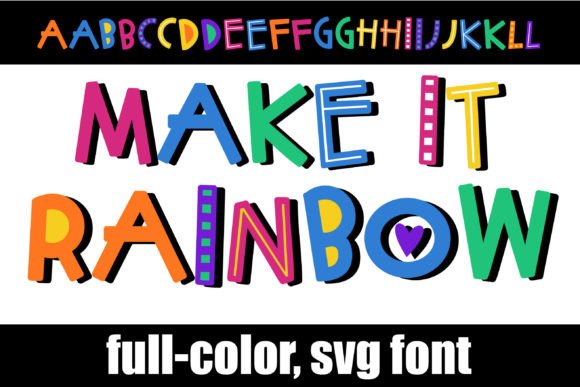
Welcome to the enchanting realm of Make It Rainbow, a color font that captivates with its vibrant and playful spirit. Immerse yourself in a world where letters dance in a kaleidoscope of colors, adding a touch of magic to your creative projects. With Make It Rainbow, the ordinary becomes extraordinary, transforming words into works of art.
Unleash your imagination and let your creativity soar as you explore the endless possibilities of Make It Rainbow. This font is the perfect companion for those seeking to add a pop of fun and personality to their designs. Its bold and bright colors are guaranteed to make a statement, leaving a lasting impression on your audience.
Whether you're designing invitations, greeting cards, social media posts, or website graphics, Make It Rainbow is the ultimate choice for adding a touch of whimsy and wonder. Its playful nature makes it ideal for projects aimed at children, bringing a smile to their faces and capturing their attention.
With Make It Rainbow, you'll discover a limitless palette of colors that blend seamlessly together, creating a visually stunning effect. Its unique and eye-catching design is sure to grab attention, making your projects stand out from the crowd.
But Make It Rainbow is more than just a pretty face. It's also incredibly versatile, lending itself to a wide range of design styles and projects. From playful and lighthearted to bold and dramatic, Make It Rainbow adapts effortlessly to your creative vision.
So, embark on a colorful journey with Make It Rainbow and let your designs radiate joy and creativity. Its user-friendly PUA encoding ensures effortless access to all glyphs and swashes, making it a breeze to incorporate into your projects. Unleash your imagination and let Make It Rainbow transform your designs into captivating works of art.